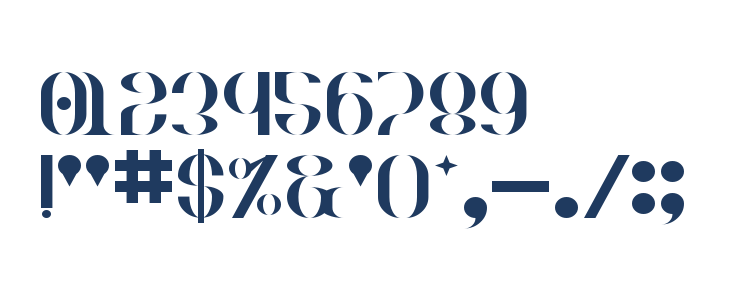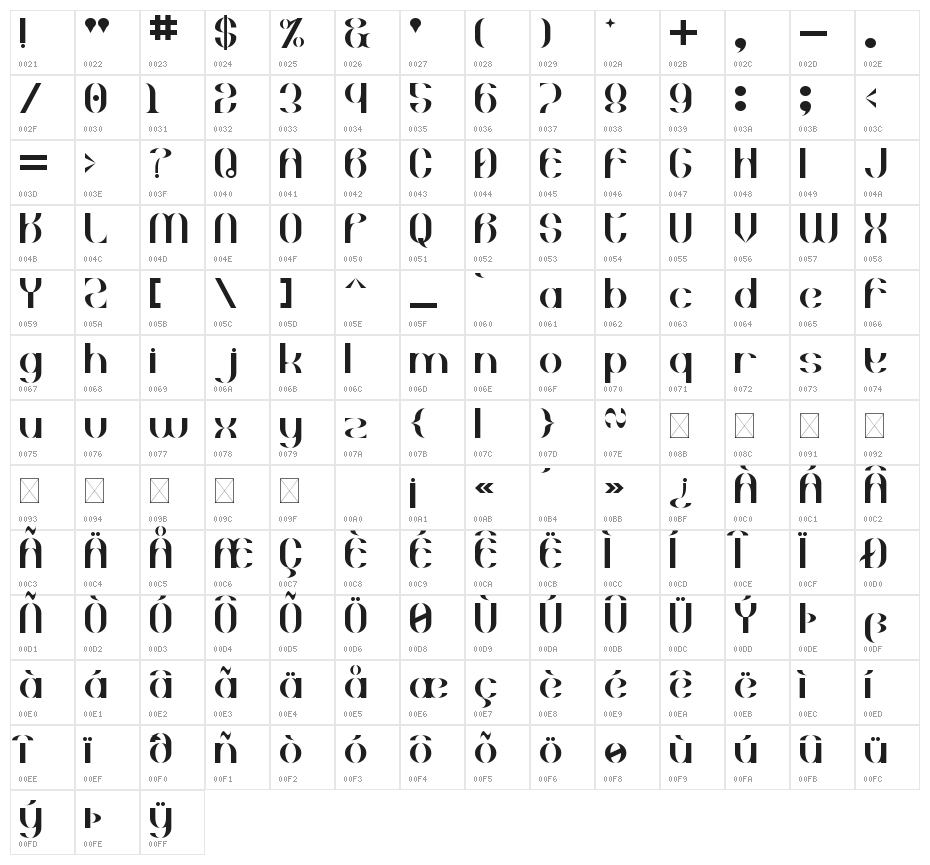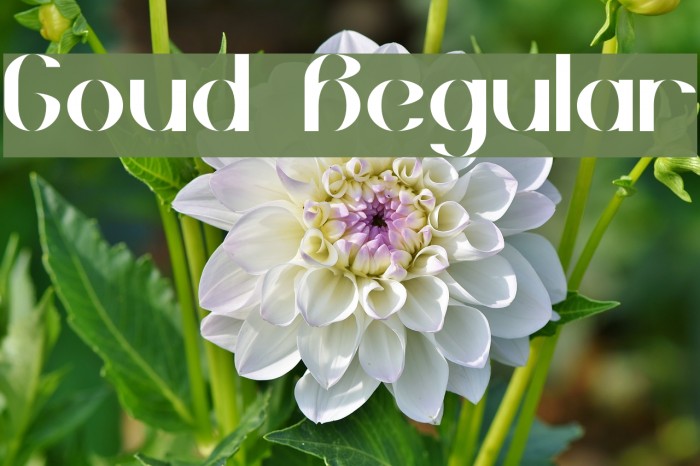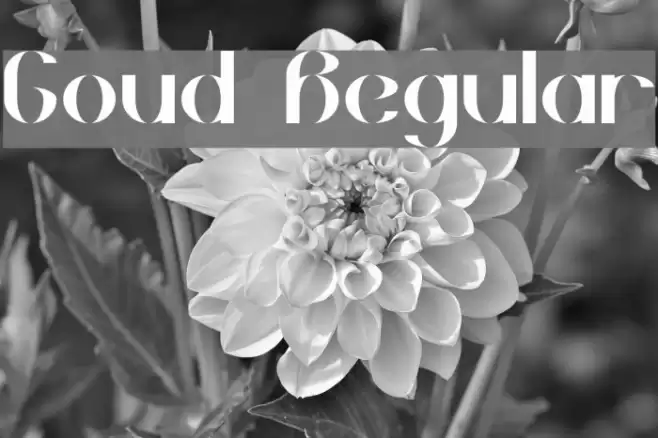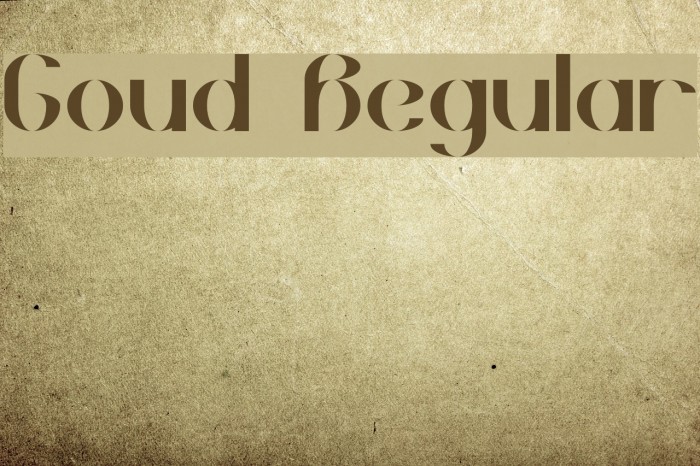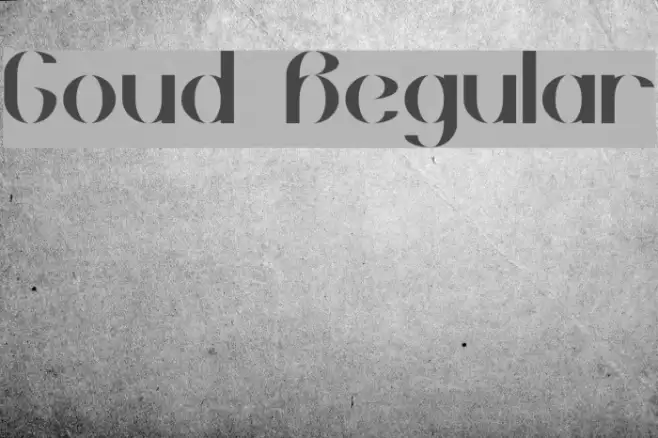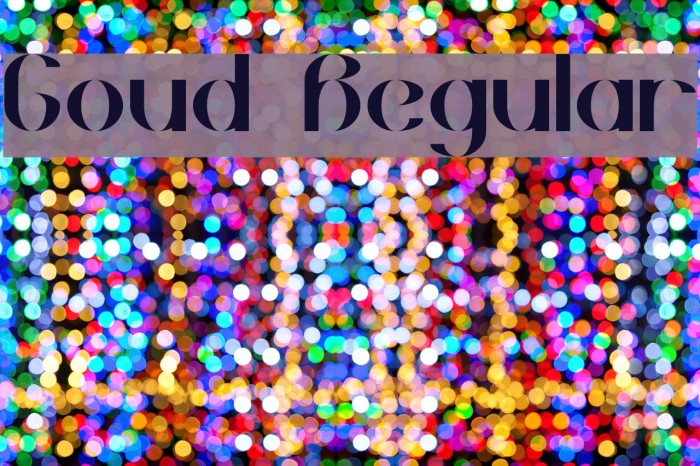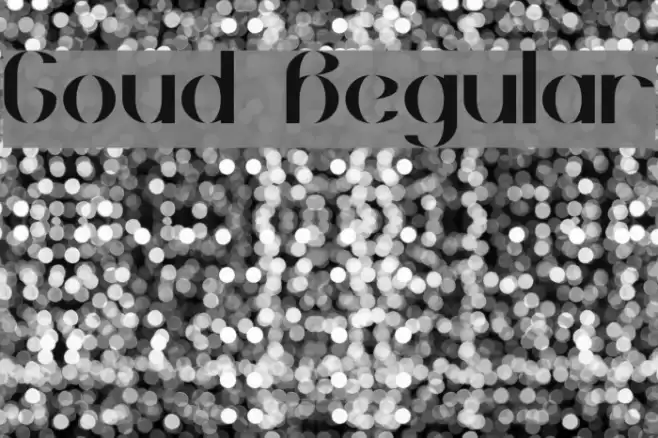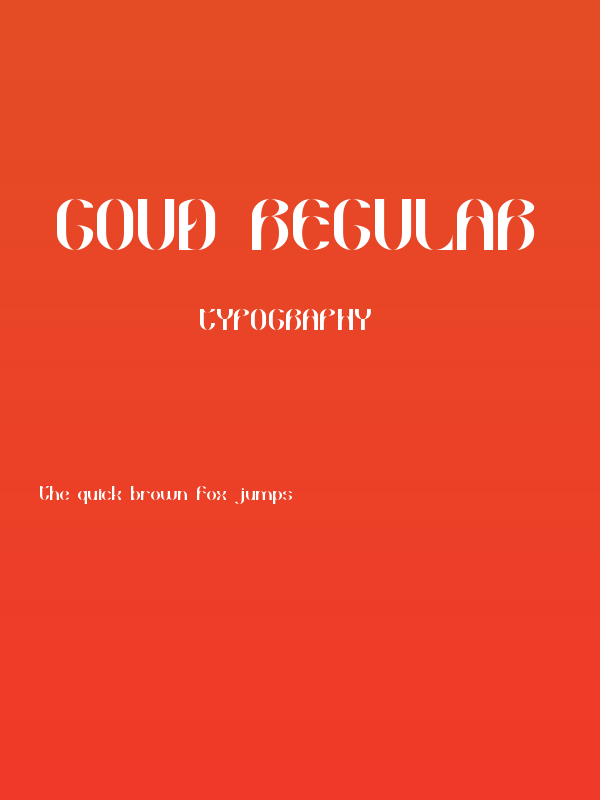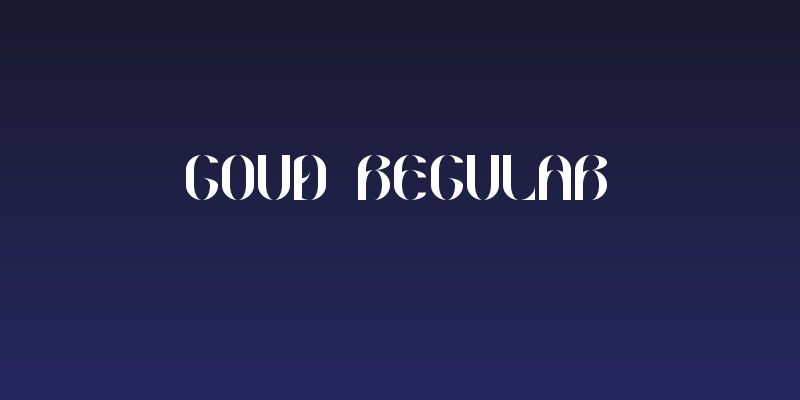
Goud Regular Font
Goud Regular Description
This font exhibits a modern and artistic style with high contrast between thick and thin strokes. The characters are designed with a unique blend of geometric and organic shapes, creating a visually striking appearance. The uppercase letters feature bold, sweeping curves and sharp angles, while the lowercase letters maintain a consistent flow with rounded edges. The numerals and special characters are equally distinctive, contributing to the font's overall dynamic and contemporary feel. The design is both elegant and bold, making it suitable for a variety of creative applications.